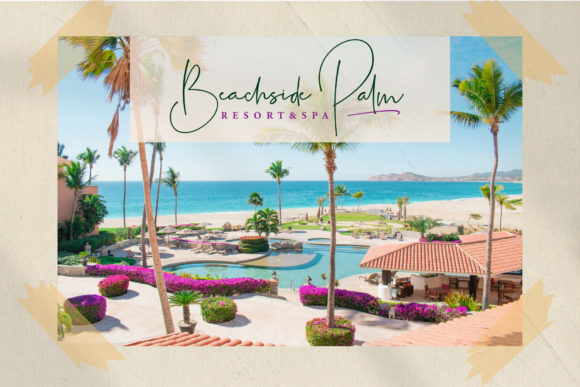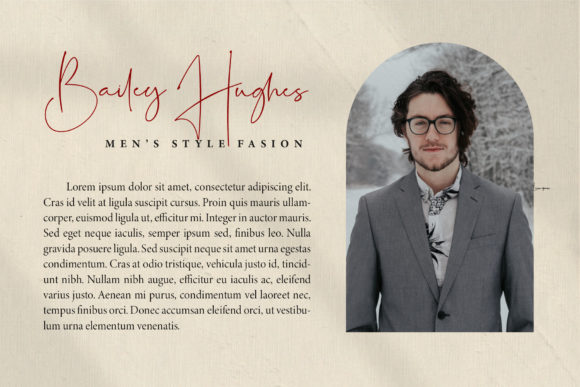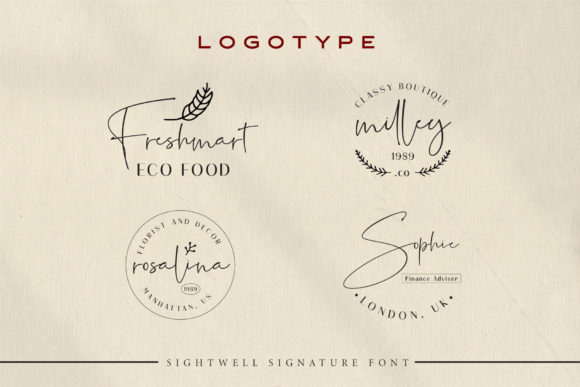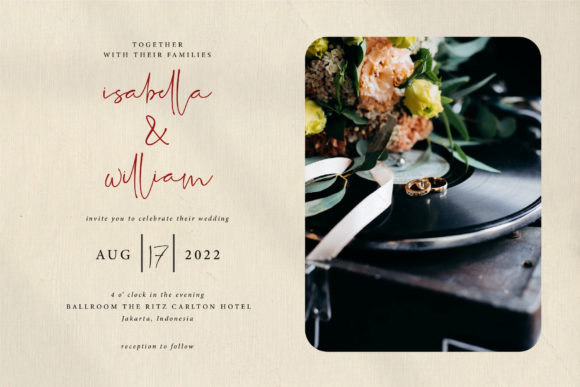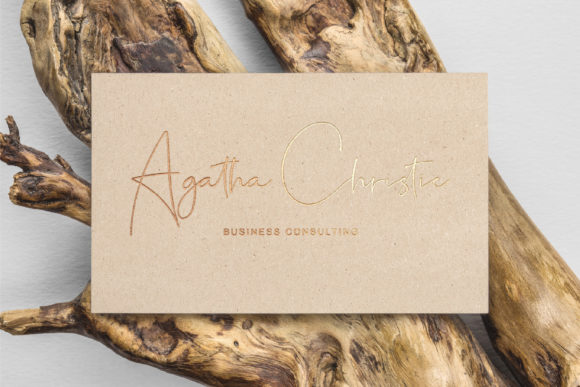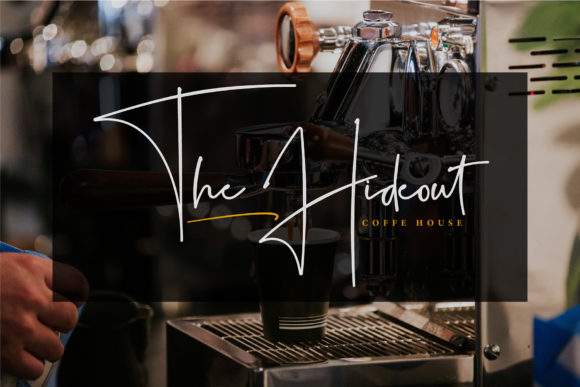
Introduction to Sightwell Signature Font
Sightwell Signature is a chic, refined script font that emanates sophistication and elegance.
Its stylish alternates and ligatures make this font the perfect match for any project Sightwell Signature is PUA encoded which means you can access all of the glyphs and swashes with ease.
Key Features of Sightwell Signature Font
Why Choose Sightwell Signature Font?
Sightwell Signature Font offers exceptional quality and versatility, making it a valuable addition to your design toolkit. Whether you’re creating for personal projects or commercial use, Sightwell Signature Font delivers professional results.